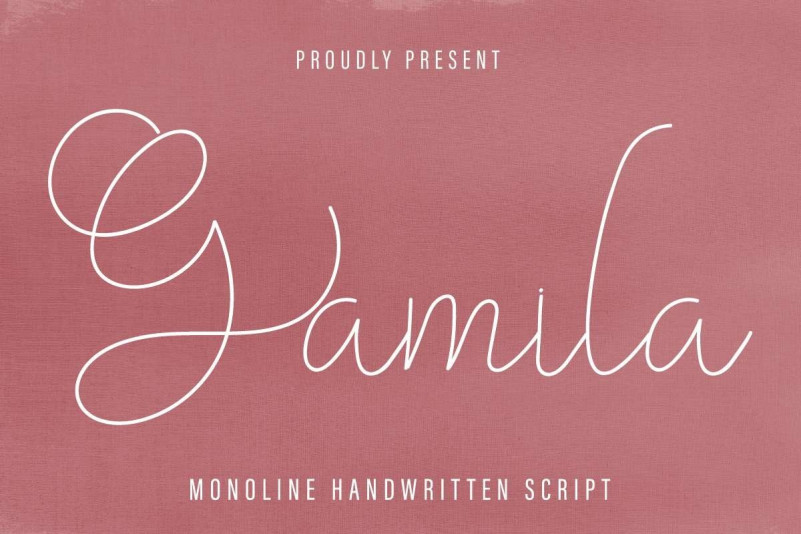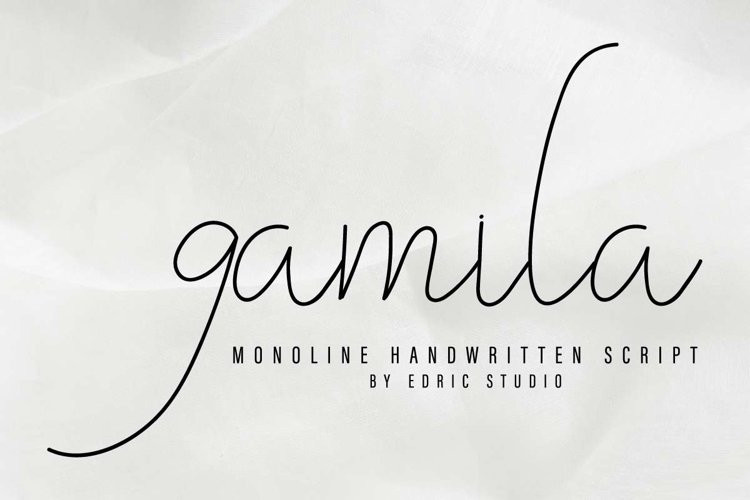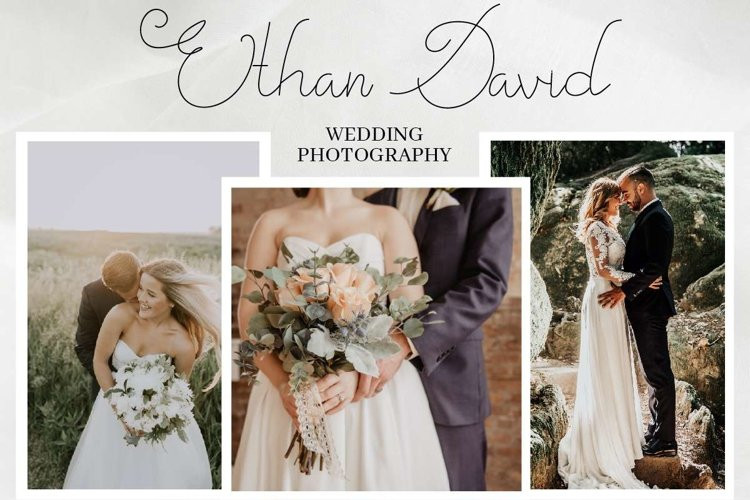
Gamila Font
Introducing our latest font  : Gamila Thin FontThis is a handwriting script signature font, handcrafted from our Studio here in, Indonesia. The artists/designers of this beautiful tyeface is Saila and Suci.Gamila Thin Font is an exclusive handwritten script typeface with one line monoline style. This font has a stunning characters set, perfectly managed with well spaced and kerning. The theme style of this font will elegant, luxury, chic, gold, cute, stylish, sophisticated and classic pen signature style. It also comes with many alternatives characters.Gamila Thin Font will be great for any projects including : branding, logo, stationery, business card, signage, flyer, brochure etc. Almost all industries will be match for this typeface: wedding, events, real estate, architect, law firm, florist, gardening, makeup artist, travel, hotel, musician etcHere’s what you’ll get on the zip pack